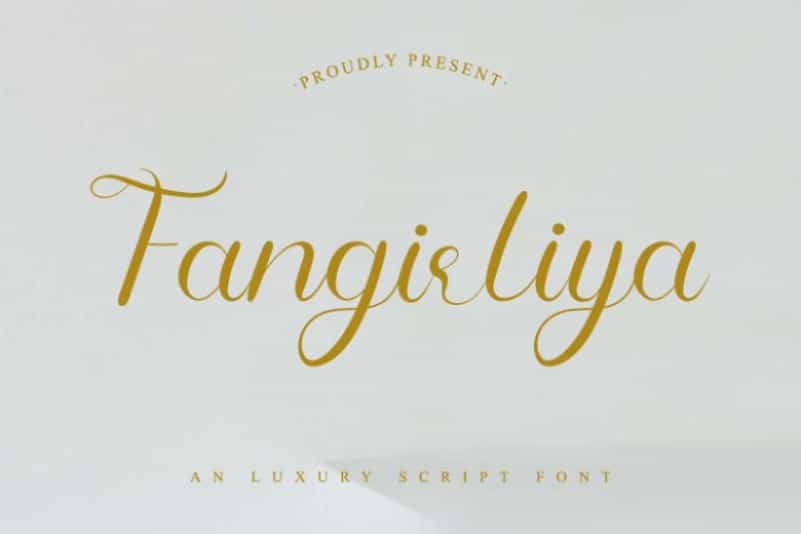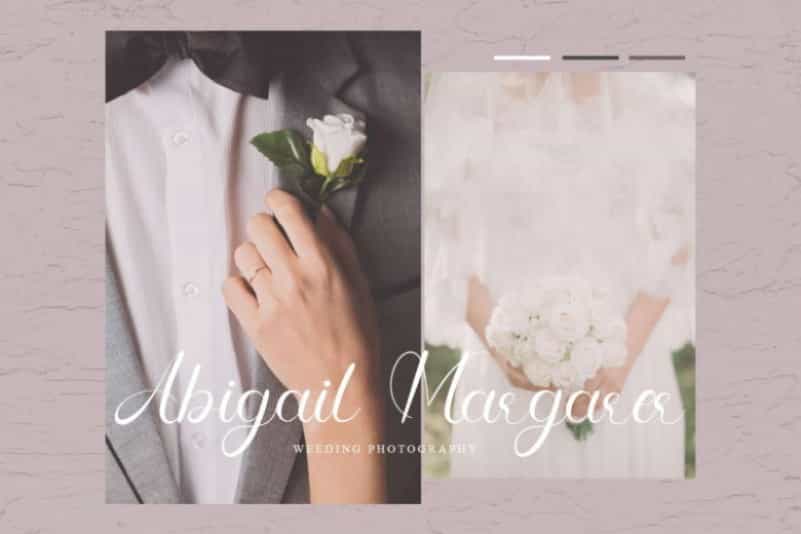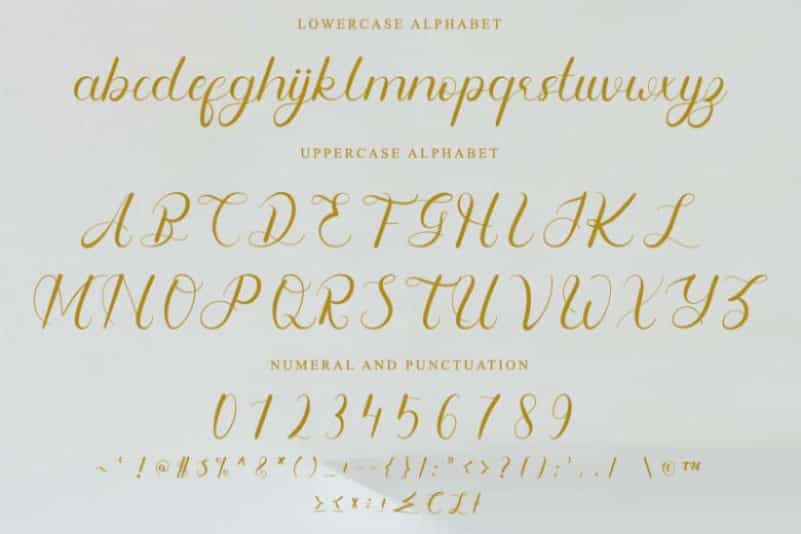
Fangirliya can be described as an elegant script typeface featuring a brush style. It boasts classic aesthetics while maintaining an approachable appeal, making this font perfect for creating stunning and unique designs.